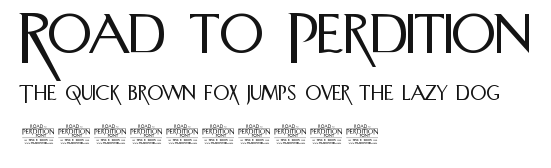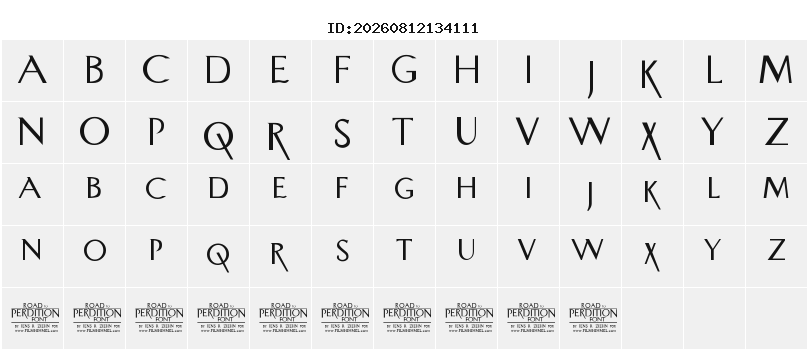
• Font Name: Road to Perdition
• Font ID: Road to Perdition
• Full Font Name: Road to Perdition
• Character Count: 53
• Copyright: by Jens R. Ziehn
About Road to Perdition.ttf
Road to Perdition.ttf is a modern, elegant sans-serif font designed for ultimate readability and visual harmony. Perfect for branding, headlines, web design, and print materials.